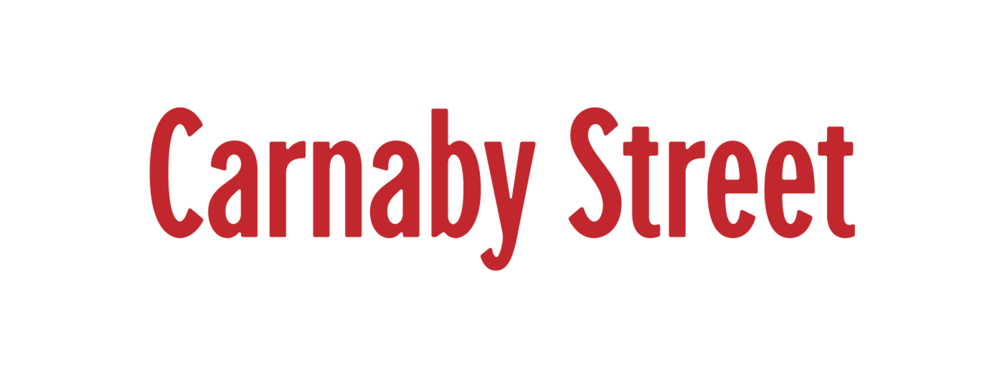
Carnaby Street
Carnaby Street is a modern take on a classic condensed typographic style. It has 294 glyphs, including over 30 alternate characters and ligatures.